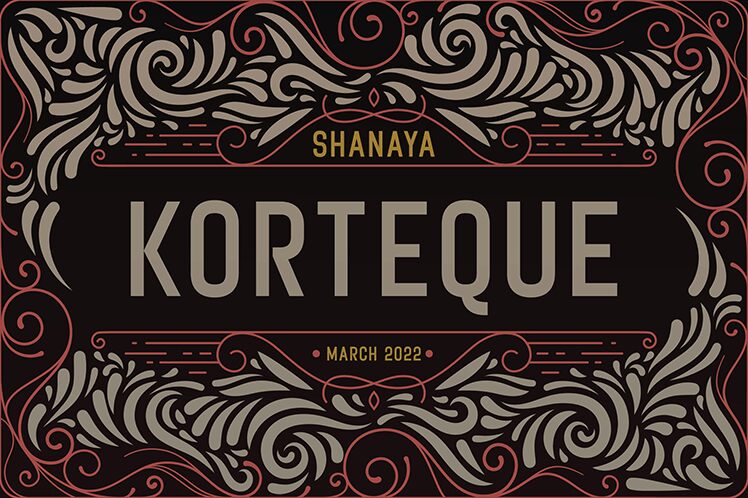
Korteque font by Shanaya Studio impresses with a contemporary geometric style and clean, futuristic feel. With an assertive design, this condensed sans serif font is ideal for use in a structured brand identity that demands attention. Its versatile adaptability allows it to express sophistication in the form of sleek headlines or smaller body paragraphs as well.
Make it effective when used in business cards, advertising banners, editorial titles and sections, product labels and packaging designs, mobile app interfaces and websites typography. Korteque is always sure to look fresh and bring new ideas whenever it is freely employed within public projects.